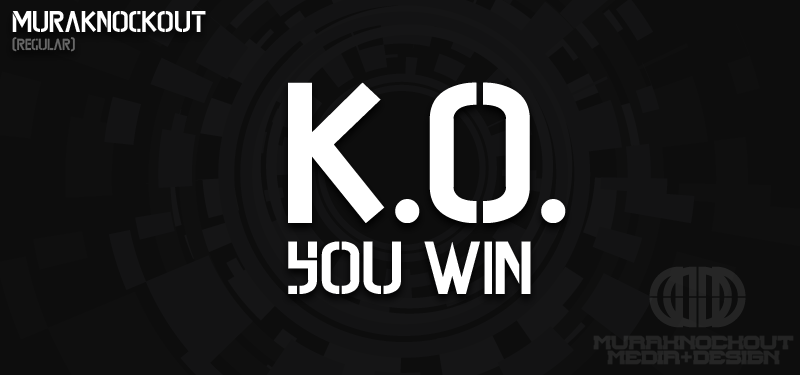
Preview and download Mura Knockout Font. Created by MuraKnockout Media + Design in Fancy Stencil, Army styles with 100% Free license.
Check out my new Font Blog to stay up to see when I release new fonts! http://murafonts.blogspot.com/ ----------------------- My first font. Meant to be edgy, mean, techy, and fun. Intended to be used for logo type. This is free to do with whatever you wish, personal or commercial. Just don't claim ownership, sell it, redistribute it, or be a jerk with it. It might be cool if you use the font to either credit MuraKnockout Media or Michael Muranaka, or show me how you used it! Enjoy! |